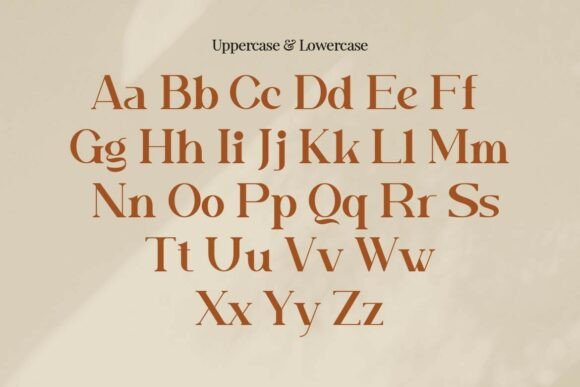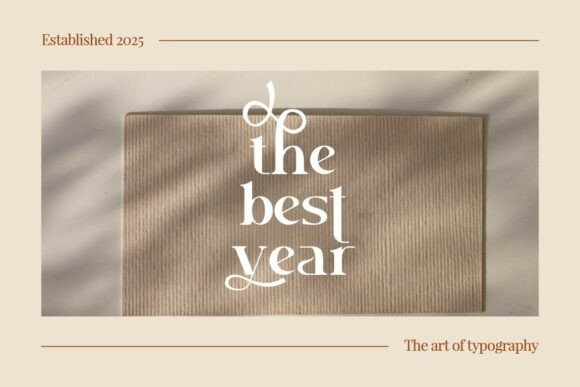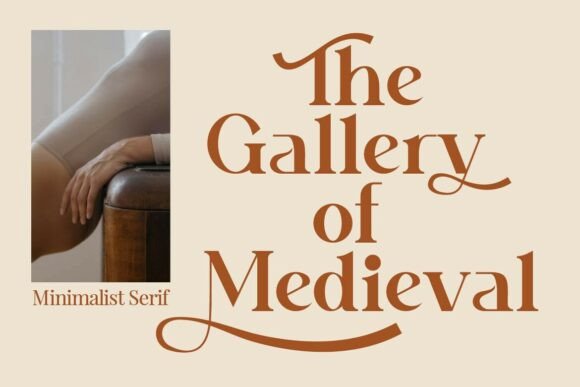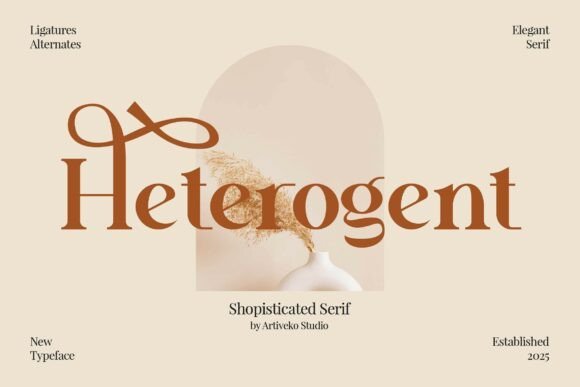
Introduction to Heterogent Font
Heterogent is a refined serif font crafted to embody timeless elegance and high-class sophistication.
With its high-contrast strokes, sharp serifs, and graceful proportions, Heterogent is perfect for luxury branding, fashion houses, editorial layouts, perfume packaging, wedding invitations, and statement logo design .
Key Features of Heterogent Font
Why Choose Heterogent Font?